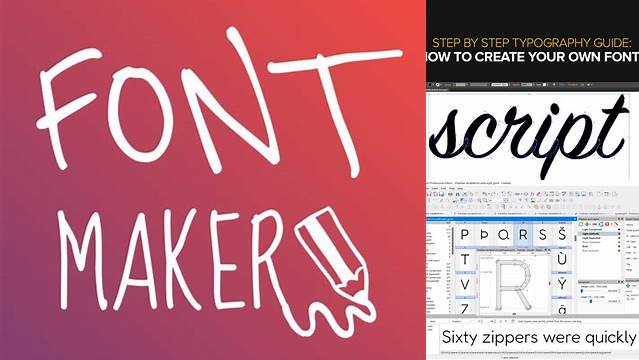
Free Font Maker: Design Your Own Fonts Easily
Creating your own fonts can seem like a daunting task, reserved for professional designers with expensive software. But guess what, guys? That's so not the case anymore! The world of font design has opened up, and there are now tons of amazing, free font makers available online and as software. Whether you're a seasoned designer looking to experiment, a small business owner wanting to create a unique brand identity, or just someone who loves fonts and wants to dabble, this guide is for you. We'll explore the fascinating world of free font creation, diving into the tools, the process, and the endless possibilities of crafting your own typography. Get ready to unleash your inner type designer!
Why Create Your Own Font?
So, why bother creating your own font when there are already literally millions out there? Well, there are several compelling reasons! Originality is a huge factor. In a world saturated with the same old fonts, having a custom typeface can make your brand or project stand out. Imagine your logo, website, or marketing materials all sporting a font that's uniquely yours. That's a powerful statement! Brand identity is another key reason. Your font is a visual representation of your brand's personality. A playful, quirky font can convey a fun and approachable vibe, while a clean, modern font might suggest sophistication and professionalism. By designing your own font, you have complete control over this crucial element of your branding. Creative expression is a massive draw for many. Font design is an art form in itself, and it's a fantastic way to express your creativity and artistic vision. You can experiment with different styles, shapes, and weights, pushing the boundaries of typography and creating something truly unique. For specific project needs, sometimes you just can't find the perfect font off the shelf. Maybe you need a font with specific ligatures, glyphs, or weights that aren't readily available. Creating your own font allows you to tailor it perfectly to your project's requirements. And let's not forget the fun of it! Designing fonts is a challenging but rewarding process. It's like solving a visual puzzle, and the satisfaction of seeing your creation come to life is pretty awesome. Plus, with the rise of free and accessible font makers, the barrier to entry is lower than ever before.
Exploring Free Font Maker Options
Alright, so you're sold on the idea of creating your own font. Awesome! Now, let's dive into the exciting world of free font maker options. There's a surprising array of tools available, catering to different skill levels and needs. We can broadly categorize them into two main types: online font makers and desktop font makers. Online font makers are web-based applications that you can access directly in your browser. They're often user-friendly and require no software installation, making them a great option for beginners or those who want a quick and easy solution. Examples include Calligraphr, FontStruct, and BirdFont (which also has a desktop version). Desktop font makers, on the other hand, are software programs that you download and install on your computer. They often offer more advanced features and flexibility, making them suitable for more complex font designs. Examples include FontForge (a powerful open-source option), Glyphs Mini (a simplified version of the popular Glyphs app), and BirdFont (again!).
When choosing a free font maker, consider your skill level and the complexity of the font you want to create. Some tools are more intuitive and beginner-friendly, while others have a steeper learning curve but offer more advanced features. Think about the features you need. Do you need to create custom ligatures? Import existing outlines? Fine-tune kerning and spacing? Make sure the tool you choose offers the features you require. Also, check the file format support. Most font makers will allow you to export your font in standard formats like TTF (TrueType Font) or OTF (OpenType Font), but it's always good to double-check. Finally, don't be afraid to experiment! Try out a few different free font maker options to see which one you like best. Each tool has its own strengths and weaknesses, so the best way to find the right one for you is to play around with them.
A Step-by-Step Guide to Font Creation
Okay, you've chosen your free font maker. Now, let's get down to the nitty-gritty of creating your own font! The process can seem daunting at first, but broken down into steps, it's totally manageable. Here's a general overview of the font creation process, covering the key steps involved, starting with ideation and sketching. Before you even touch a computer, spend some time brainstorming and sketching out your ideas. What kind of font do you want to create? What's its personality? What will it be used for? Sketching allows you to explore different ideas and refine your vision before you get bogged down in the technical details. Think about the basic shapes of your letters. Will they be rounded or angular? Thick or thin? Serif or sans-serif? Experiment with different styles and variations until you find something you like. Consider the overall mood and tone you want your font to convey. A handwritten-style font will feel very different from a geometric sans-serif. Don't be afraid to draw inspiration from existing fonts, but always strive to create something unique and original.
Once you have a clear idea of what you want to create, the next step is digitizing your sketches. This involves transferring your hand-drawn letters into your chosen free font maker. Most font makers offer various ways to do this, including importing scanned images, drawing directly within the software, or using vector editing tools. If you've sketched your letters on paper, you'll need to scan them or take clear photos. Import these images into your font maker as templates. Then, use the software's drawing tools (usually Bezier curves) to trace over your sketches and create digital outlines of your letters. This is where the real magic happens! You'll be carefully shaping the curves and lines of your letters to achieve the desired look and feel. Take your time and pay attention to detail. The smoothness and consistency of your outlines are crucial for a professional-looking font. Many font makers also allow you to import vector graphics from other programs, such as Adobe Illustrator or Inkscape. This can be useful if you're already comfortable working with vector editing software. Once you've digitized your basic letterforms, you'll need to create the full character set. This typically includes uppercase and lowercase letters, numbers, punctuation marks, and symbols.
Next comes refining and kerning. Creating all the glyphs for a font is a big job, but the next steps are also crucial to making your font look polished and professional. Refining your letters is about making subtle adjustments to their shapes and proportions to ensure consistency and visual harmony. Look at your letters as a whole. Do they all feel like they belong to the same family? Are there any individual characters that stand out for the wrong reasons? Pay attention to the spacing between the strokes and the overall balance of each letter. Kerning is the process of adjusting the spacing between individual pairs of letters to improve readability and visual appeal. Some letter combinations (like "AV" or "To") can appear too far apart if the default spacing is used. Kerning involves manually adjusting the space between these pairs to create a more even and pleasing appearance. This is a time-consuming but essential step in font design. It can make a huge difference in the overall quality and readability of your font. Most free font maker tools have kerning features that allow you to adjust the spacing between letter pairs. Take the time to kern your font carefully, and you'll be amazed at the difference it makes. Finally, you need to test and export your font. Before you unleash your font on the world, it's crucial to test it thoroughly. Try it out in different sizes, weights, and contexts. Use it in sentences and paragraphs to see how it reads. Print it out and examine it on paper. Look for any flaws or inconsistencies. Do the letters sit well on the baseline? Are there any kerning issues you missed? Testing your font is the best way to catch any problems before you share it with others. Once you're happy with your font, you're ready to export it in a standard font format, such as TTF (TrueType Font) or OTF (OpenType Font). These formats are widely supported by operating systems and software applications, so your font should work on most devices. Congratulations! You've created your own font!
Tips for Designing a Great Font
So, you've got the basics down, but how do you go from a good font to a great font? Here are some tips for designing a fantastic font, focusing on simplicity and legibility. While it can be tempting to create a super-ornate or complex font, it's often best to start with a simple, legible design. A font that's easy to read will be more versatile and useful in a wider range of applications. Think about the fonts you see every day – they're usually quite clean and straightforward. Simplicity doesn't mean boring! You can still inject personality and style into your font while keeping it legible. Pay close attention to the shapes of your letters and the spacing between them. A well-designed font will have a sense of visual harmony and balance. When starting out, consider choosing one key characteristic or concept to guide your design and ensuring that characteristic is present and consistent throughout your font. For example, if you want a font that is rounded, ensure that all of your letters share a rounded characteristic.
Consistency is key in font design. Make sure your letters have a consistent style and weight. The thickness of the strokes, the shapes of the serifs (if any), and the overall proportions should be similar across all characters. Inconsistencies can make your font look amateurish and difficult to read. Pay attention to the details. The small things can make a big difference in the overall look and feel of your font. Even tiny adjustments to the curves or spacing can have a significant impact. Get feedback from others. Show your font to friends, colleagues, or other designers and ask for their honest opinions. Fresh eyes can often spot things that you've missed. Be open to criticism and use it to improve your design. It's really important to pay attention to kerning. We mentioned this earlier, but it's worth repeating! Kerning is crucial for readability and visual appeal. Spend the time to kern your font carefully. As a bonus tip, you may even find the the best way to achieve kerning is in the planning stages. Careful measurements of your letters and spacing, at this stage, will make the kerning process much easier and more successful. The effort is well-worth the outcome! Finally, you should be patient and persistent. Font design is a time-consuming process. Don't expect to create a masterpiece overnight. It takes time, practice, and experimentation to develop your skills. Don't get discouraged if your first few fonts aren't perfect. Keep learning, keep practicing, and you'll eventually create something amazing.
Monetizing Your Fonts
Okay, so you've created an awesome font. Now what? Well, if you're feeling ambitious, you might consider monetizing your fonts! Selling your fonts can be a great way to earn some extra income or even turn your passion for typography into a full-time career. There are several ways to monetize your fonts, starting with selling them online. There are many online marketplaces where you can sell your fonts, such as MyFonts, Creative Market, Fontspring, and YouWorkForThem. These platforms provide a ready-made audience of designers and creatives who are looking for new fonts. Each marketplace has its own pricing structure, commission rates, and terms of service, so it's important to do your research and choose the ones that are the best fit for you. Creating an account on one or more of these marketplaces is the first step. Then, prepare your font files (TTF and OTF formats are standard), along with any documentation, such as a license agreement or a read-me file. You'll also need to create compelling product descriptions and preview images to showcase your font. Think about what makes your font unique and appealing, and highlight those features in your marketing materials. It is also crucial to think about pricing your fonts competitively. Look at similar fonts on the market and price your font accordingly. You can offer different licensing options, such as personal use, commercial use, or extended licenses, and charge different prices for each. Remember that your font listing is like a shop window, you need to entice potential customers to make a purchase. Consider creating engaging images that utilise your font in a unique way, show casing it at its best.
So, guys, that's the lowdown on creating your own fonts for free! Whether you're a design newbie or a seasoned pro, there's never been a better time to dive into the world of typography. With the awesome tools and resources available, you can unleash your creativity and design fonts that are truly unique. Happy font-making!